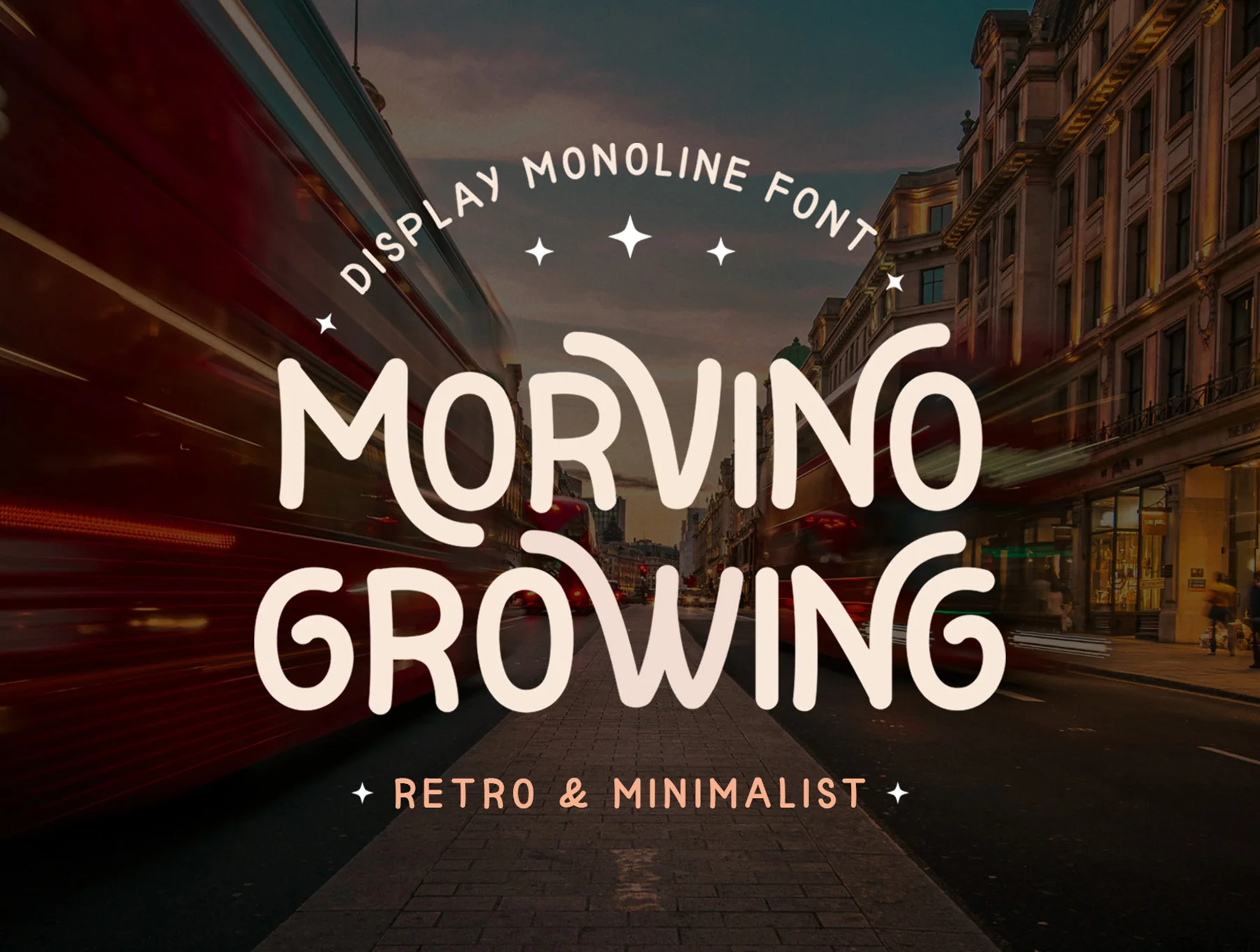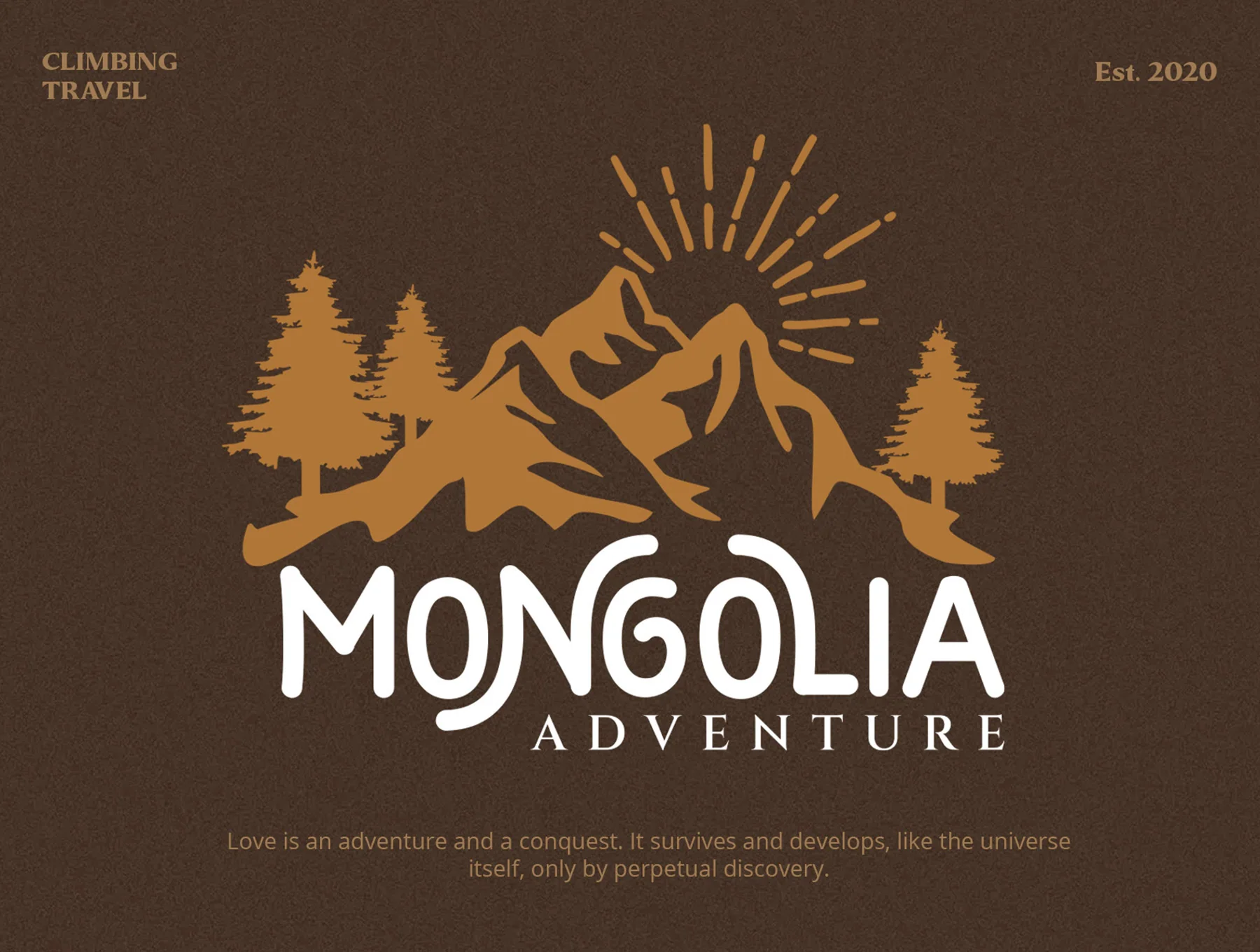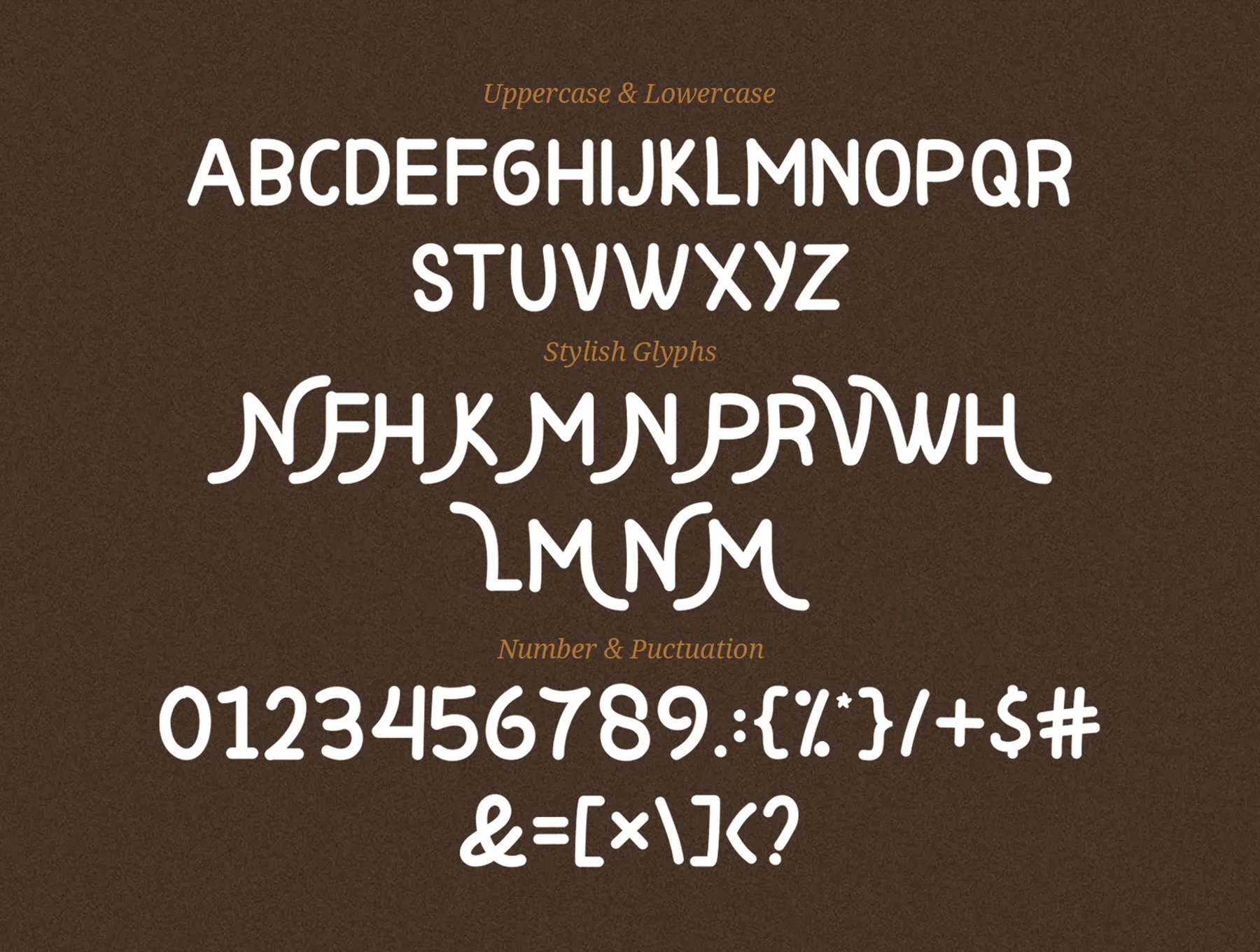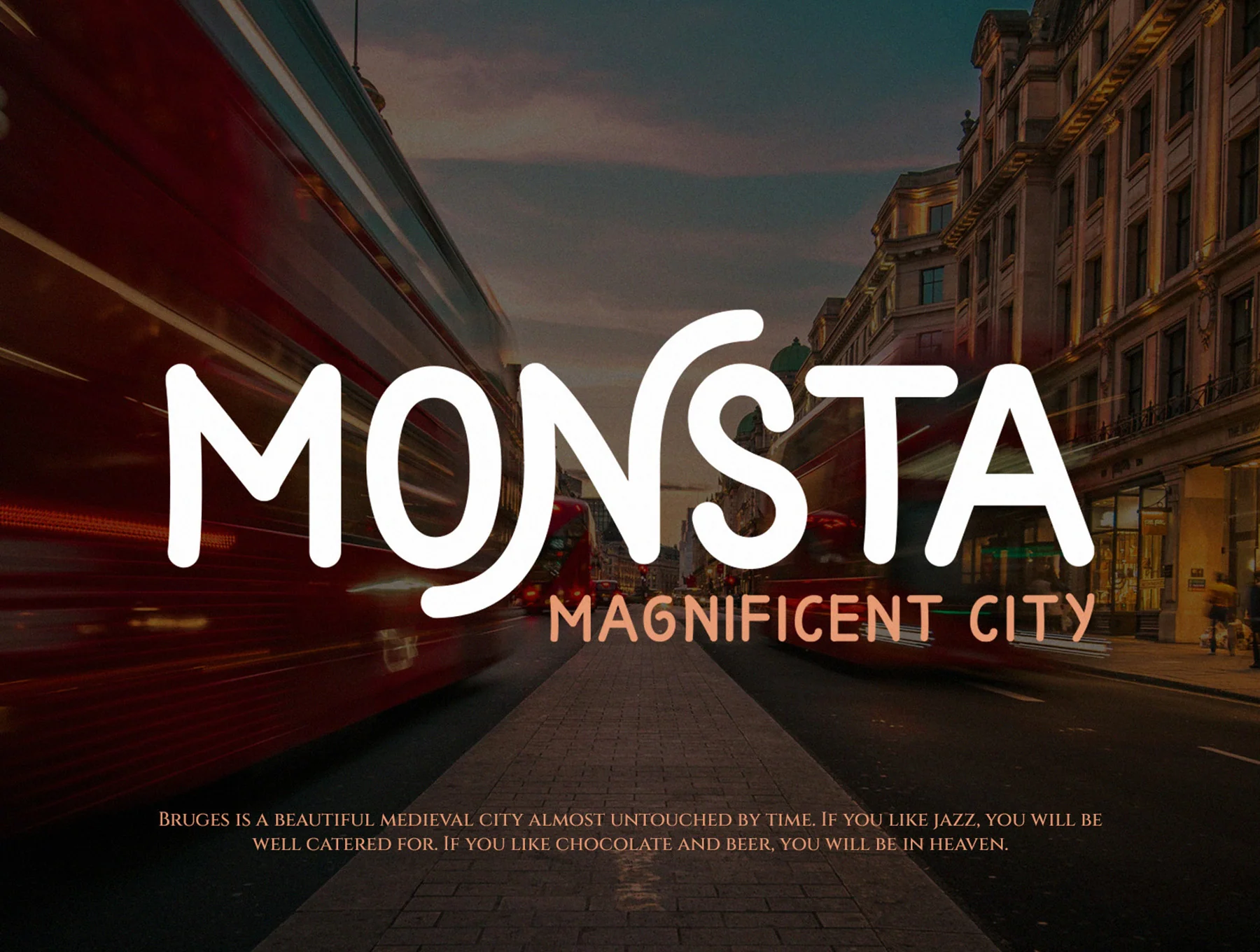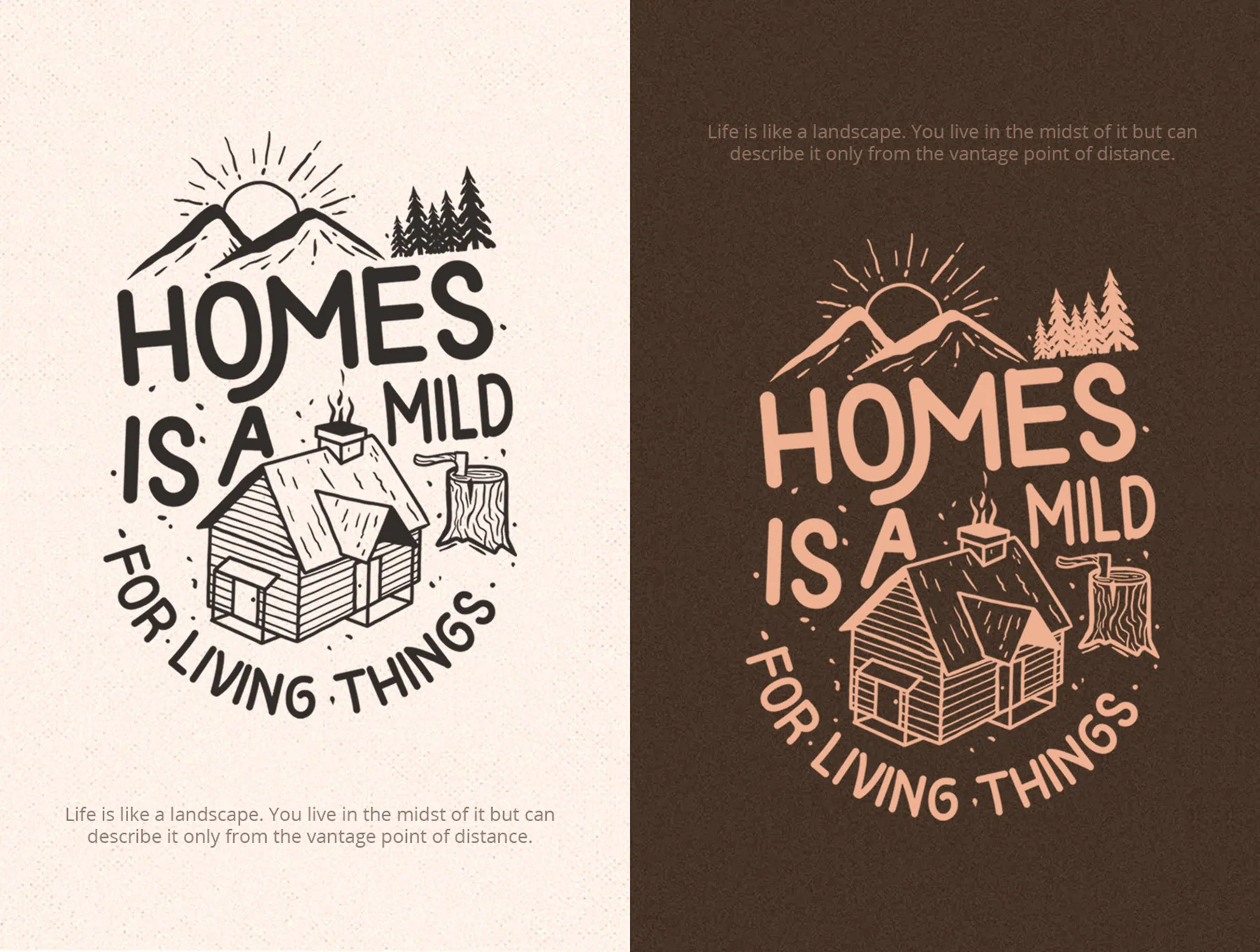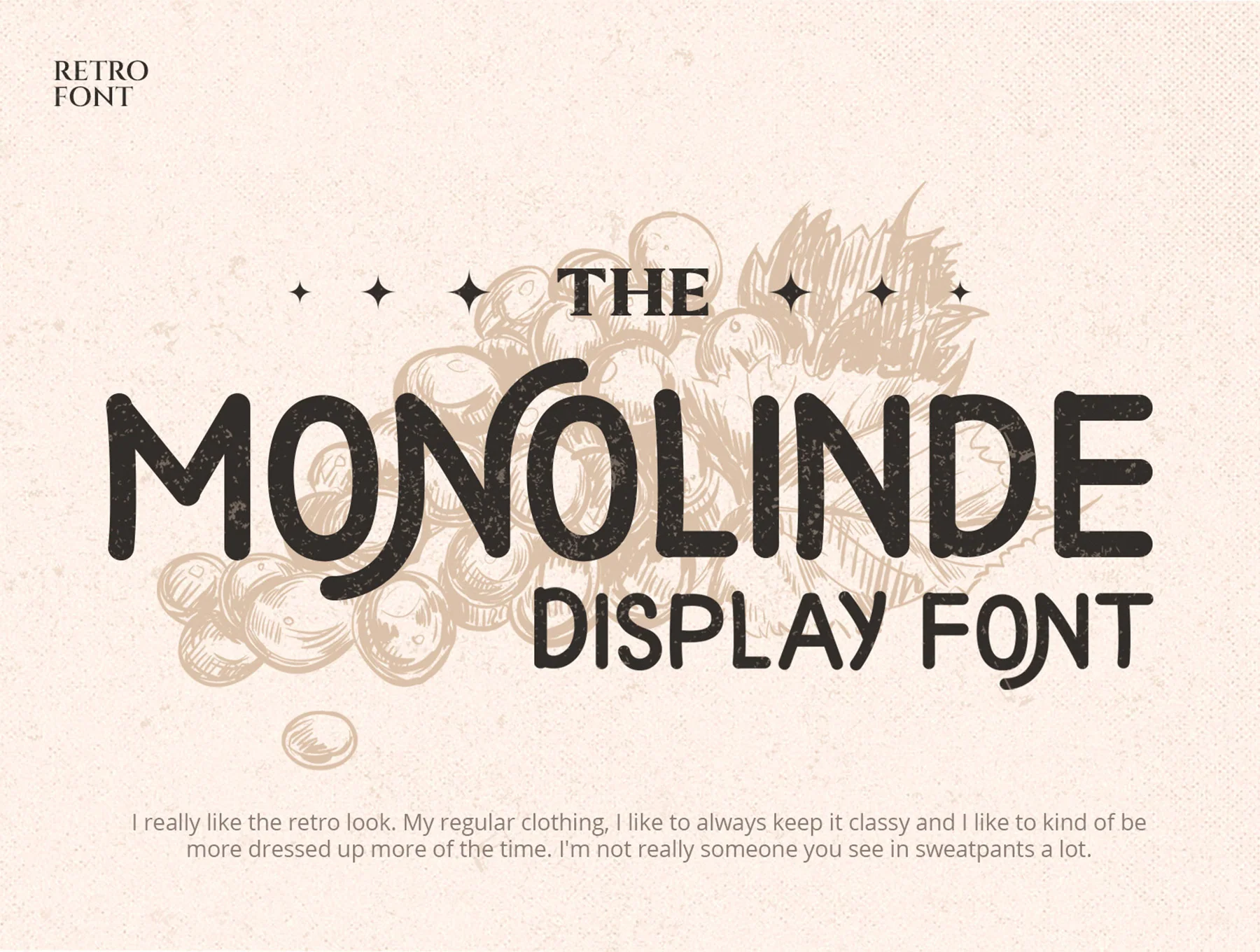
Morvino Growing - Modern & Retro Monoline font
Contemporary retro-inspired monoline typeface
Complete uppercase and lowercase alphabet
Contemporary and vintage style
Morvino Growing is a display typeface suited for baby items, crafts, packaging, quotes, product artwork, artisan projects, labels, photography, watermarks, logos, and branding. Its features work in OpenType-compatible apps like Adobe InDesign, Illustrator, Photoshop CC, and CorelDRAW. Includes OTF, TTF, and WOF files.